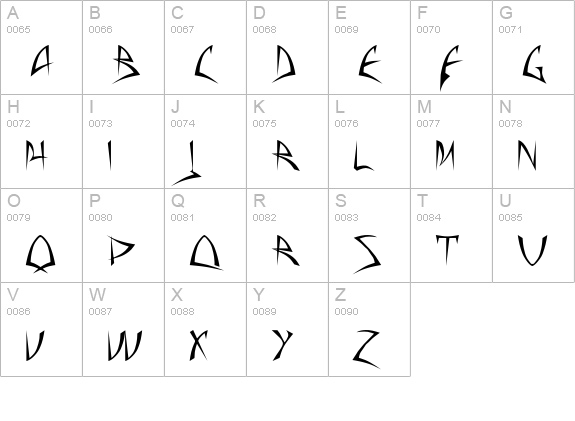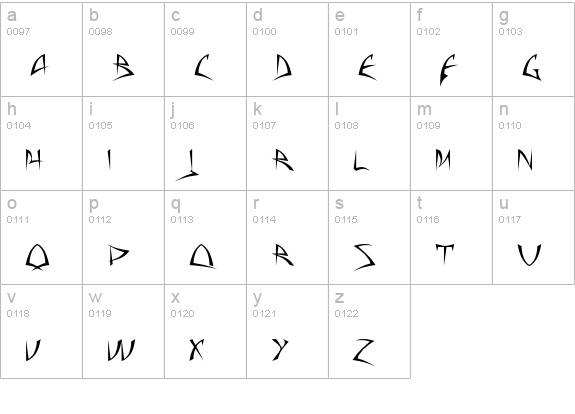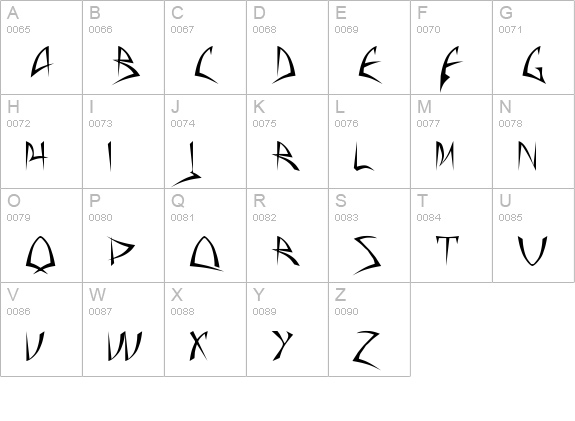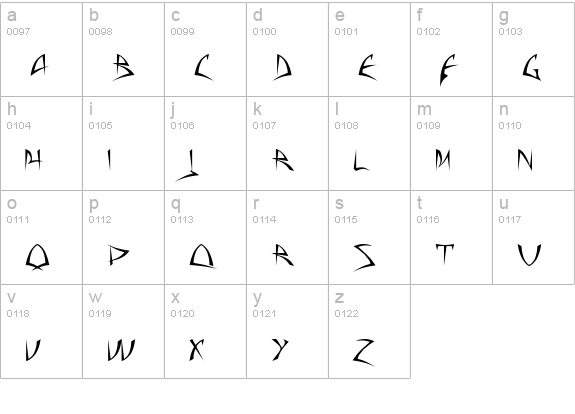
Stella Font Details
Stella font is a modern and elegant typeface that exudes sophistication and style. With its clean lines and graceful curves, Stella font is perfect for adding a touch of class to any design project. Whether you are creating invitations, branding materials, or editorial layouts, Stella font will elevate your work to the next level. What's even better is that Stella font is completely free to download at FontsMarket.com. That's right, you can access this stunning typeface at no cost and use it in your projects without any restrictions. So why wait? Enhance your designs with Stella font today and see the difference it makes!